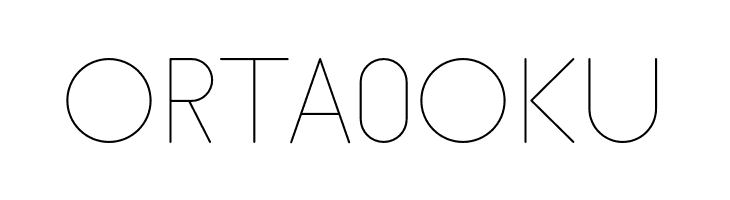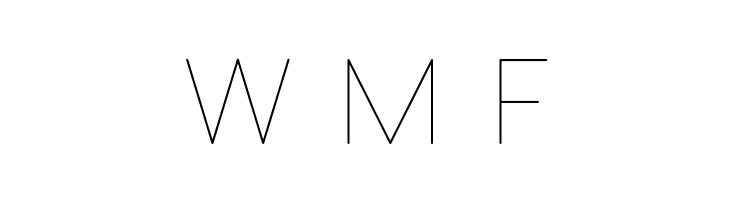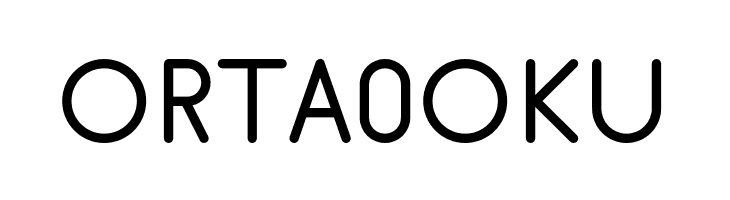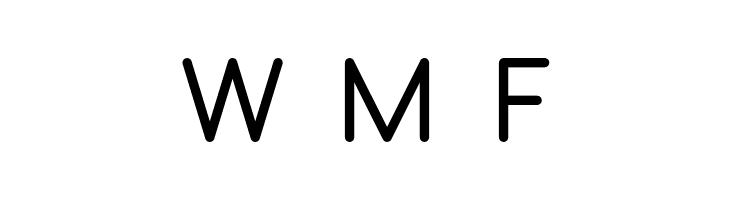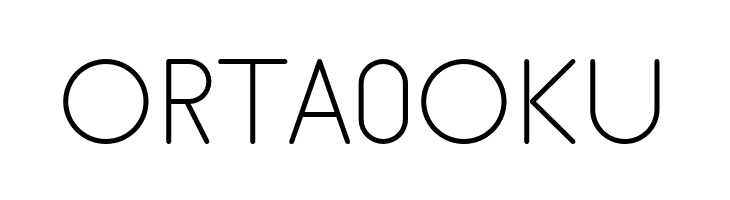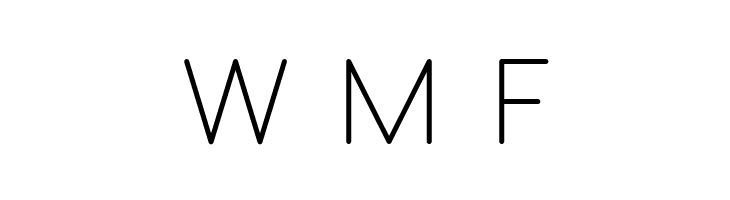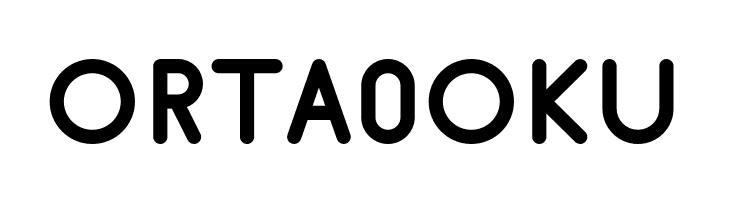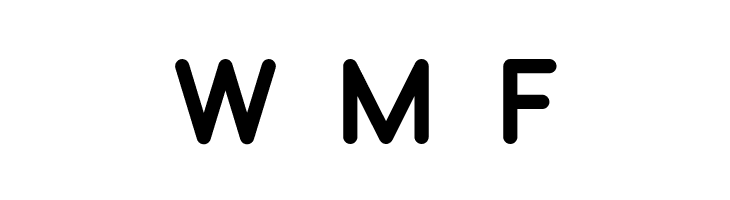
A dynamic and expressive script font with a fluid, handwritten style.
( Fonts by Poemhaiku )
A hand-drawn, expressive font with a sketch-like, graffiti-inspired style.
A lively and elegant script font with flowing, cursive letterforms.
( Fonts by Ferdiansyah )
An elegant script font with flowing, ornate characters and high contrast.
( Barland - creativemarket.com/Barland )
A flowing, cursive script font with elegant loops and swashes.
A modern, geometric sans-serif font with clean lines and balanced spacing.
A modern, thin-lined font with a clean and sophisticated design.
A modern sans-serif font with rounded edges and a clean, approachable style.
A modern, clean sans-serif font with uniform strokes and rounded edges.